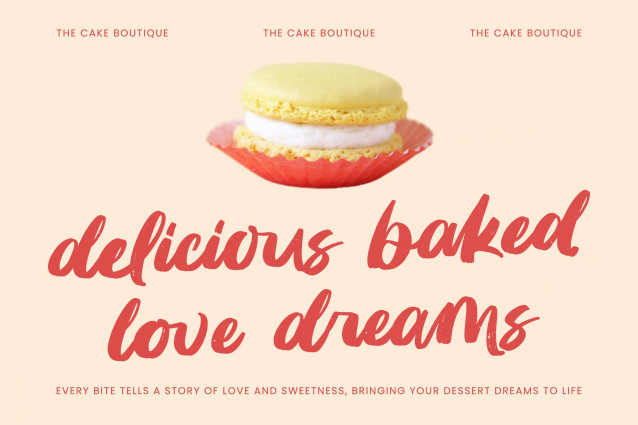
Huntail Peach Font
Huntail Peach – Bold Brush Font , from Letterena, is a Luxury Script font, suitable for any projects such as: logos, branding projects, homeware designs, product packaging, mugs, quotes, posters, shopping bags, t-shirts, book covers, name card, invitation cards, greeting cards, label, photography, watermark, special events, and all your other luxury and beautiful projects that need a Luxury Script taste.